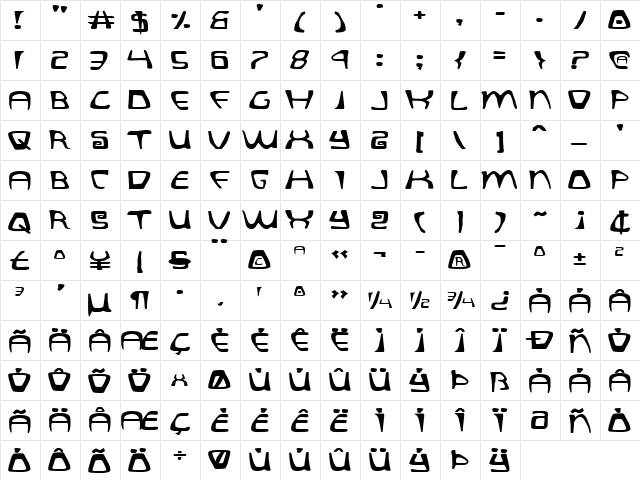
Quatl Expanded Expanded
Design Context for Quatl Expanded Typeface
Quatl Expanded is a composed and adaptable typeface that performs quietly and consistently across a wide range of design contexts.